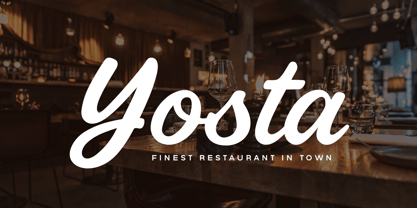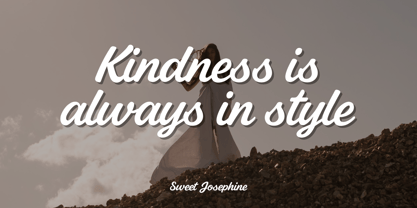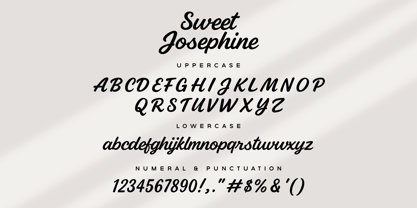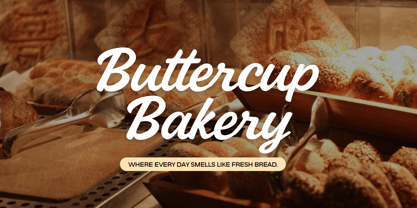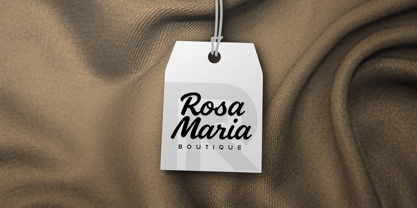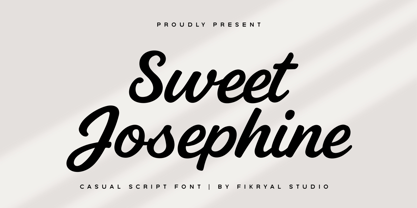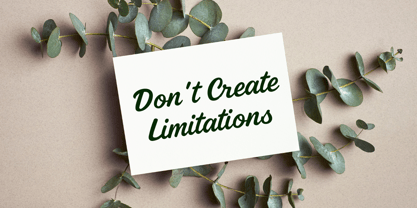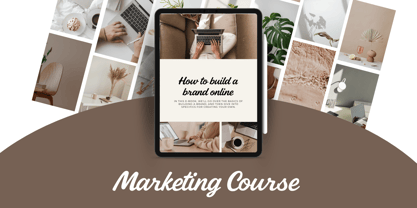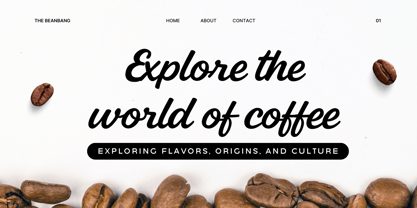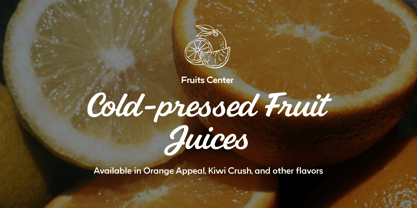
Sweet Josephine
by Fikryal
The Sweet Josephine Font Family was designed by Muhammad Fikry and published by Fikryal. Sweet Josephine contains 1 styles. More about this family
Sweet Josephine – Casual Script Font is a bold and friendly script typeface that blends modern style with a handcrafted feel. Designed with smooth, confident strokes, this font is perfect for branding, logos, packaging, quotes, social media graphics, and more.
Packed with ligatures and alternate characters, Sweet Josephine gives you plenty of typographic variety, allowing you to create natural-looking text with a personalized touch.
Features:
• Uppercase & lowercase letters
• Ligatures & stylistic alternates
• Multilingual support
Perfect for:
• Branding & logo design
• Wedding or event invitations
• Product packaging
• Quotes, posters & social media posts
Add charm and bold character to your next design with Sweet Josephine, a script font made for creatives who love strong yet casual aesthetics.